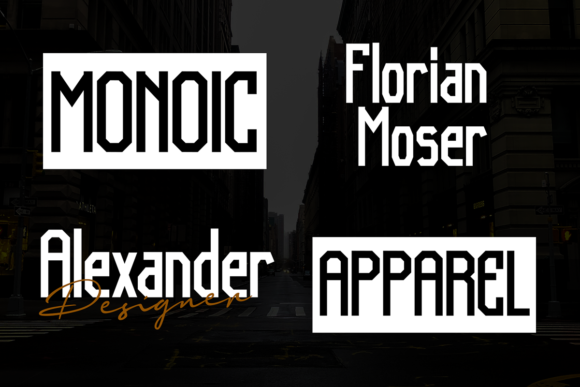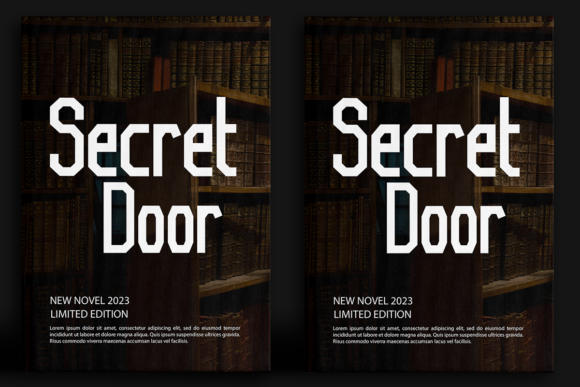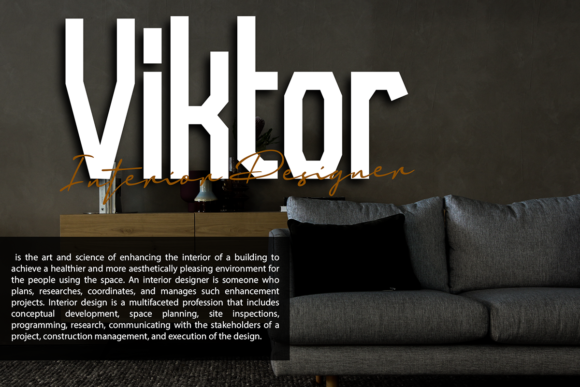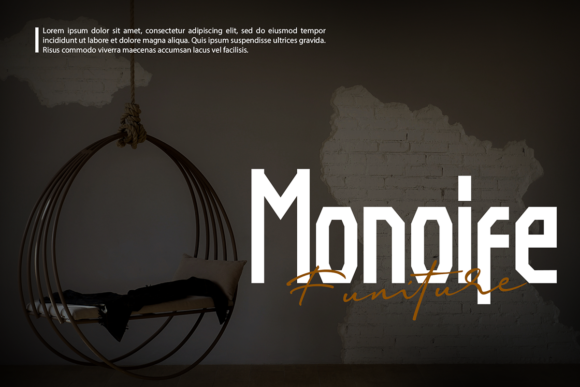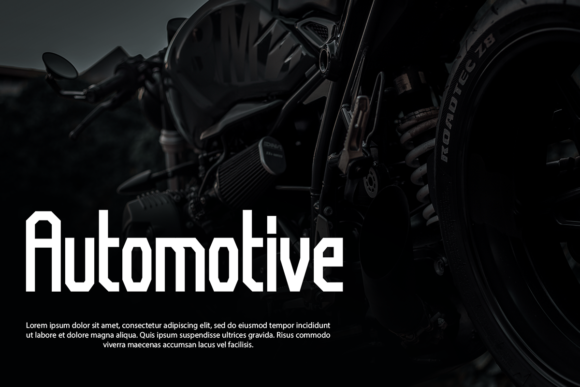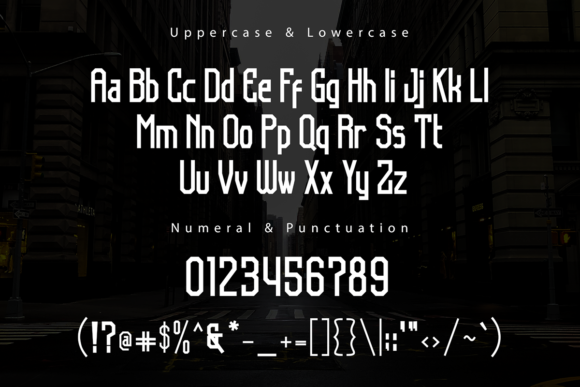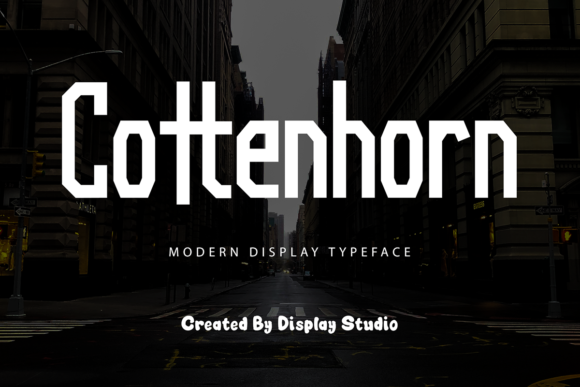
Cottenhorn Font: Elevate Your Designs with Modern Style
In the world of typography, a font can make or break a design. If you’re a designer, craftsperson, or simply someone who appreciates beautiful typography, you’re in luck. Introducing Cottenhorn, a modern, stylish, and impressive display font that’s perfect for a wide range of projects. From brand logos to invitations, greeting cards, and more, Cottenhorn is the perfect choice for anyone looking to add a touch of elegance and sophistication to their work.
What is Cottenhorn Font?
Cottenhorn is a modern display font designed to make a statement. With its sleek lines, stylish curves, and impressive letterforms, this font is sure to turn heads. Whether you’re working on a branding project, creating invitations, or designing a greeting card, Cottenhorn is the perfect choice. Its versatility and flexibility make it an excellent addition to any designer’s toolkit.
Key Features of Cottenhorn Font
So, what sets Cottenhorn apart from other fonts? Here are just a few of its key features:
- Multilingual Support: Cottenhorn supports multiple languages, making it an excellent choice for designers who work with international clients or want to create designs that cater to a global audience.
- Style Variations: With Cottenhorn, you get access to a range of style variations, allowing you to experiment with different looks and feels to find the perfect fit for your project.
- Modern Design: Cottenhorn’s modern design ensures that your work looks fresh, contemporary, and on-trend.
Perfect for a Range of Projects
Cottenhorn is an incredibly versatile font that can be used for a wide range of projects, including:
- Brand Logos: Create a lasting impression with a custom logo that showcases your brand’s personality and style.
- Invitations: Make your invitations stand out with Cottenhorn’s elegant and sophisticated letterforms.
- Greeting Cards: Add a touch of class and refinement to your greeting cards with Cottenhorn’s beautiful typography.
- Any Kind of Project: Whether you’re working on a website, brochure, or social media graphics, Cottenhorn is the perfect choice for any design project.
Why Choose Cottenhorn Font?
With so many fonts available, why choose Cottenhorn? Here are just a few reasons:
- Unique Design: Cottenhorn’s unique design ensures that your work stands out from the crowd.
- Ease of Use: This font is incredibly easy to use, making it perfect for designers of all skill levels.
- High-Quality Typography: Cottenhorn’s high-quality typography ensures that your work looks professional and polished.
In conclusion, Cottenhorn is an exceptional display font that’s perfect for designers, craftspersons, and anyone looking to elevate their designs with modern style. With its multilingual support, style variations, and modern design, Cottenhorn is an excellent addition to any designer’s toolkit. Whether you’re working on a brand logo, invitation, greeting card, or any other project, Cottenhorn is sure to impress. So why wait? Download Cottenhorn today and take your designs to the next level!